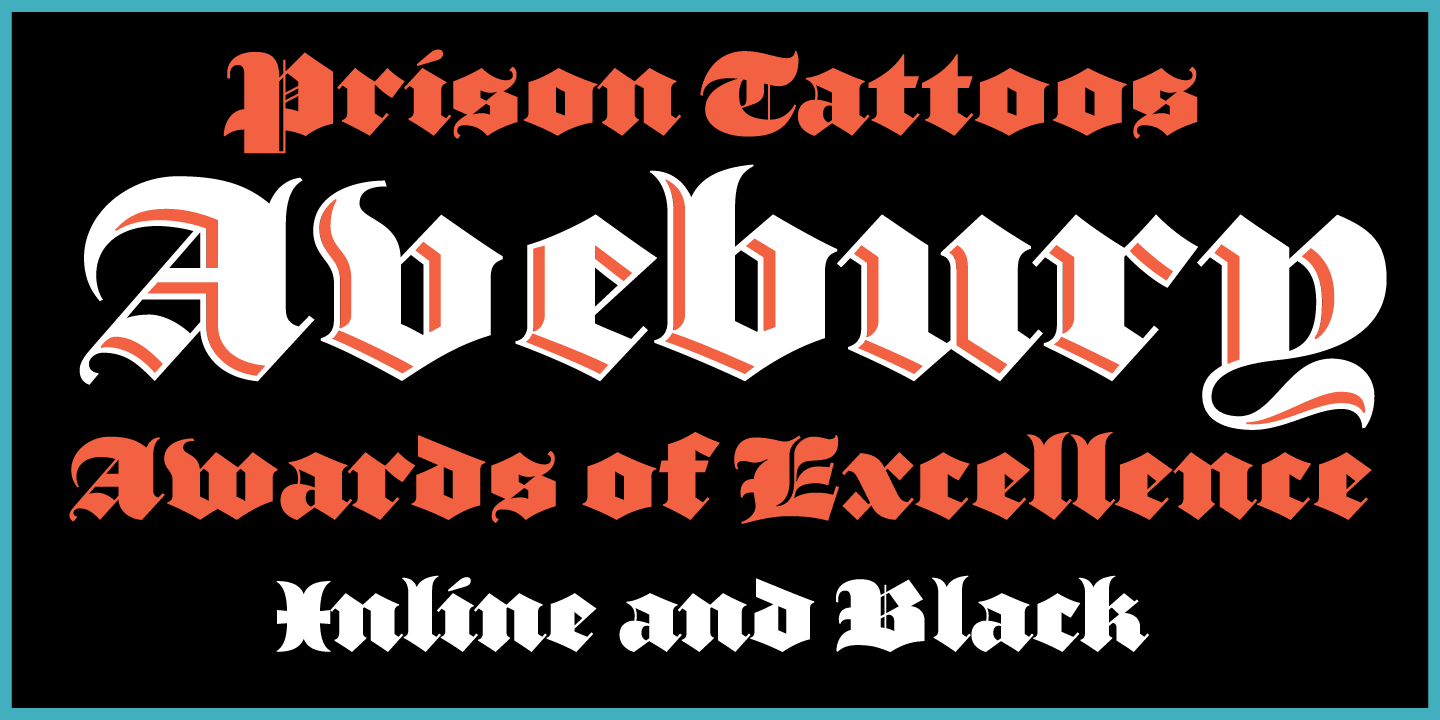
Avebury is a blackletter font family. This typeface has two styles and was published by Parkinson Type Design.
An ultra black blackletter, Avebury Black and Avebury Inline were inspired by an early blackletter from the Caslon Foundry. Early blackletters from the Bruce Type Foundry are also reflected in this slightly modernized and more readable typeface. Caution. For display only.